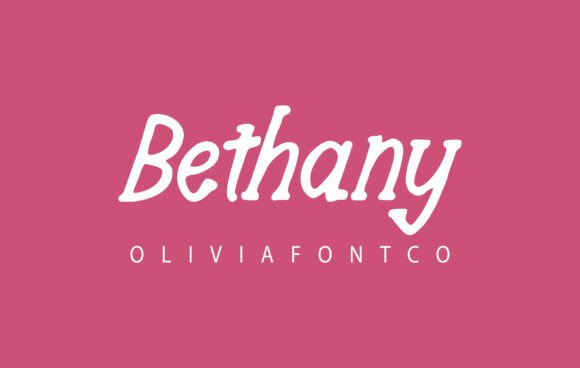
The Bethany Font: A Romantic Touch for Your Creative Projects
I’ll never forget the struggle I faced while working on a wedding invitation project. My client wanted a font that was elegant, yet playful, and I was determined to find the perfect one. After hours of browsing through font libraries, I stumbled upon the Bethany font. It was love at first sight! 💕 The romantic touch and authentic handwritten feel of this font made it an instant favorite. In this article, I’ll share my experience with the Bethany font, its features, and how to make the most of it in your creative projects.
An Honest Review of Bethany Font
- ✨ Legibility: The Bethany font is incredibly legible, making it perfect for both title and body text.
- ✅ Romantic Touch: The font’s authentic handwritten feel adds a touch of romance to any design.
- 💫 Versatility: It can be used for a wide range of designs, from magazine headlines to social media graphics, branding, wedding invitations, and more.
While the Bethany font is amazing, there are a few things to keep in mind:
- 🤔 Limited use of all-caps: The font is designed to be used in both upper and lower case, but it may not be the best choice for all-caps text.
- ⚠️ Glyph limitations: While the font has a range of glyphs, it may not have every special character or symbol you need.
- Experiment with OpenType features, such as Stylistic Alternates and Glyphs, to add more personality to your text.
- Access OpenType features, such as Swashes and Stylistic Sets, to add more flair to your text.
The Designer Inspiration Behind Bethany Font
The Bethany font was designed with the intention of creating a romantic, yet authentic handwritten font. The designer aimed to create a font that would be perfect for creative projects, such as wedding invitations, social media graphics, and branding. The result is a beautiful, legible font that adds a touch of elegance to any design.
Q: What is the Bethany font best used for?
A: The Bethany font is perfect for creative projects, such as wedding invitations, social media graphics, branding, and more.
Q: Is the Bethany font legible?
A: Yes, the Bethany font is incredibly legible, making it perfect for both title and body text.